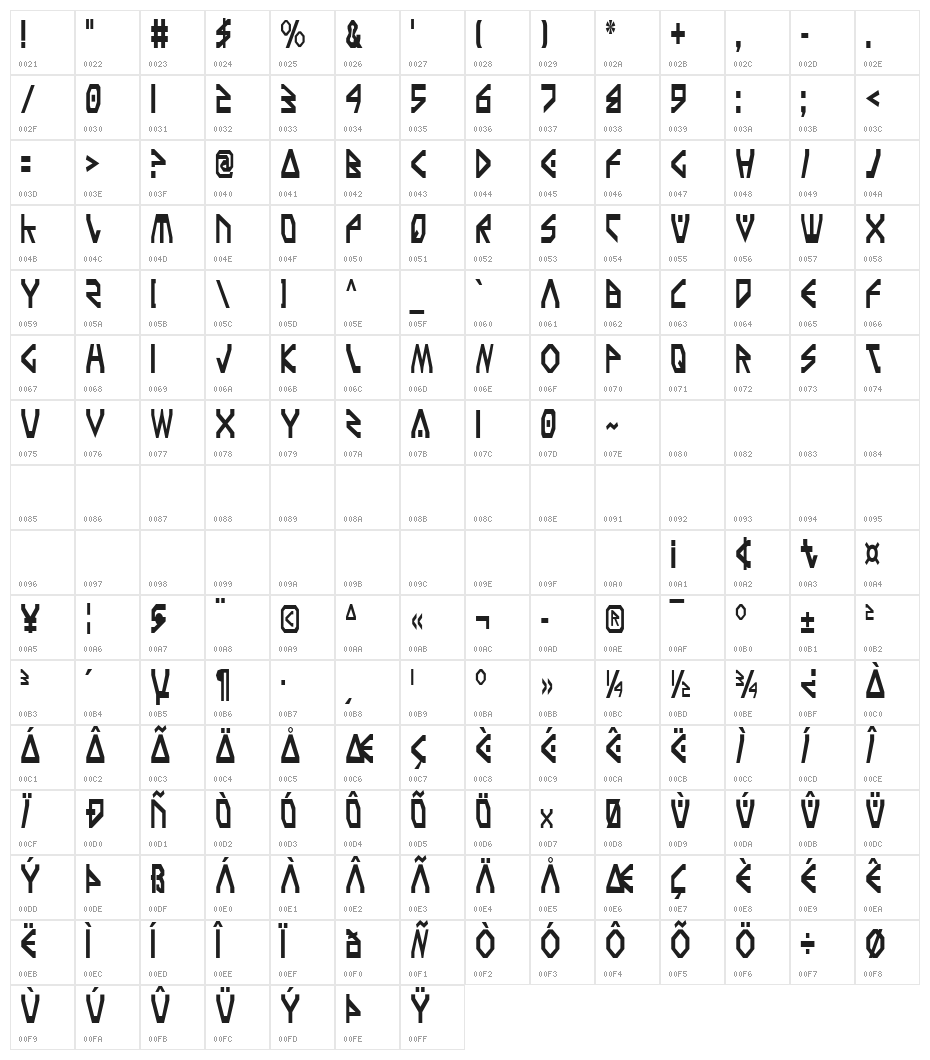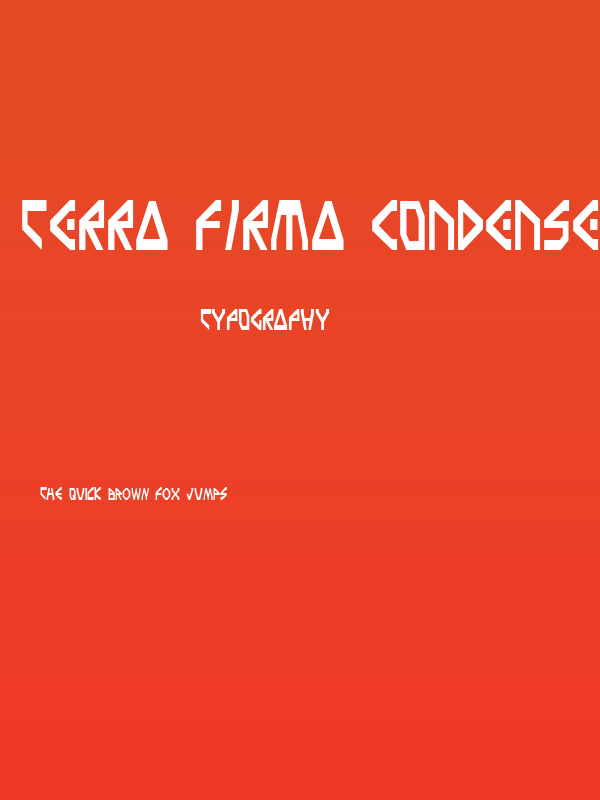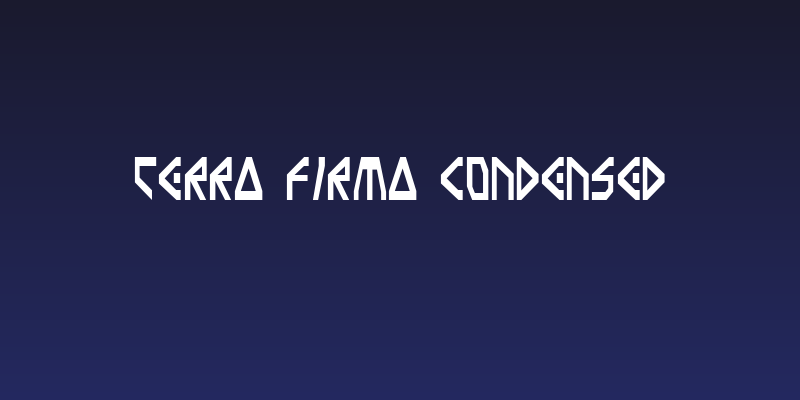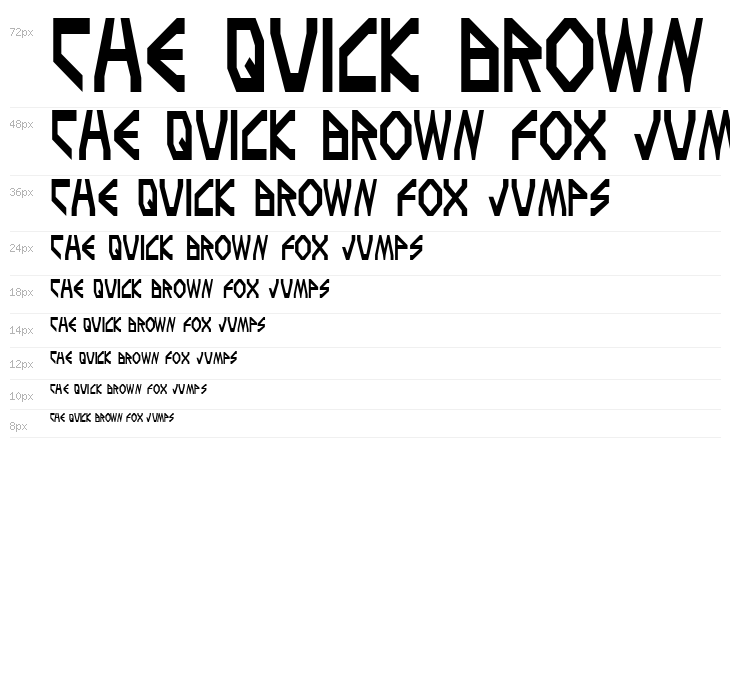
Terra Firma Condensed Font
Terra Firma Condensed Description
This font features a bold, geometric design with sharp angles and a futuristic aesthetic. The characters are constructed with a consistent thickness, creating a uniform appearance across the alphabet. The uppercase and lowercase letters share a similar style, emphasizing the font's cohesive look. The numbers and special characters maintain this geometric theme, ensuring versatility across various applications. The condensed width of the characters allows for efficient use of space, making it suitable for headlines and display purposes. Its unique style is eye-catching and modern, ideal for projects that require a strong visual impact.
| Proposed Projects | Ideal for sci-fi themed designs, modern branding, posters, and digital media. |